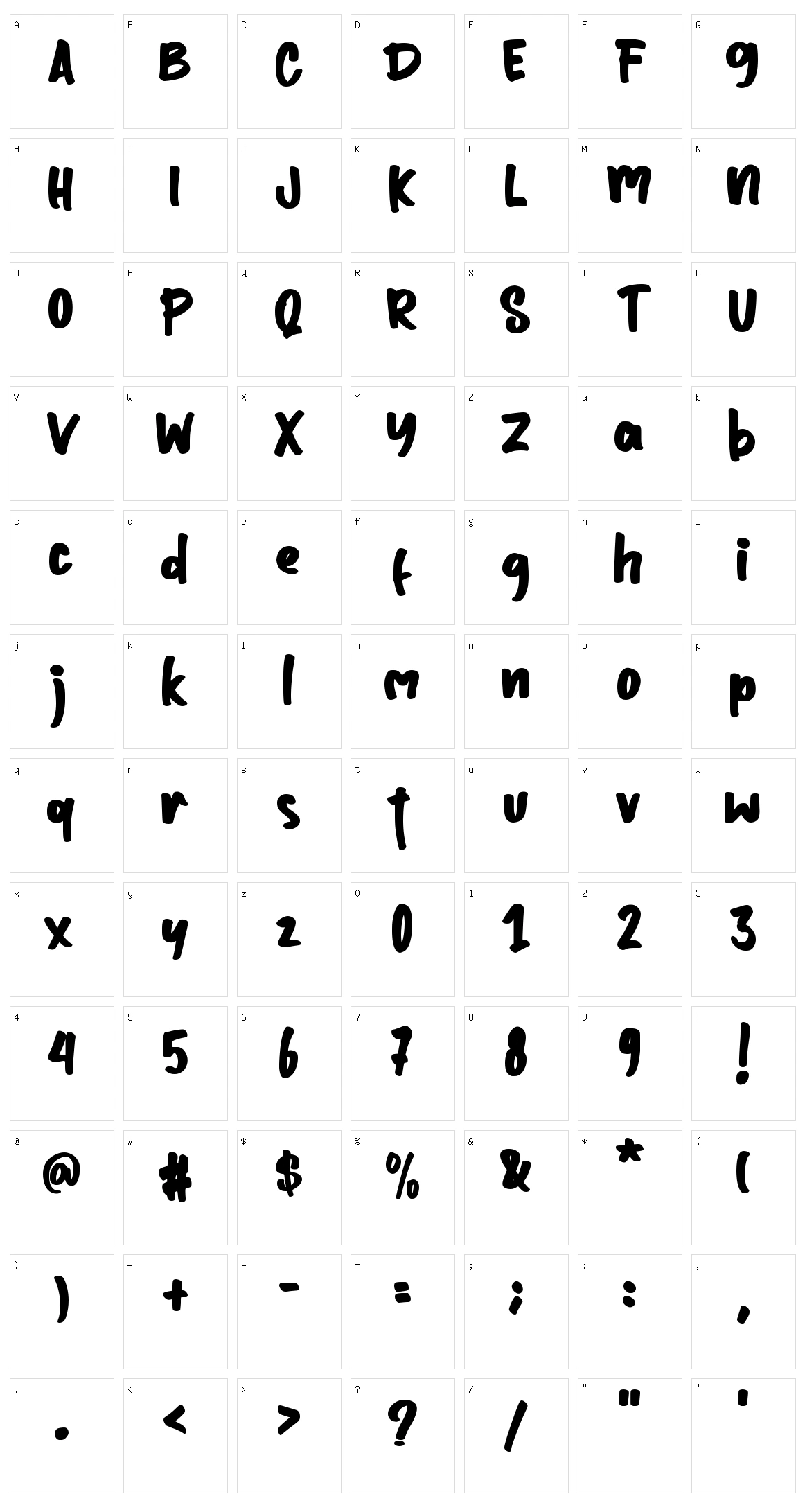
The free font Jolly Angel is carefully designed by Stefani Letter, showcasing a thoughtful balance of creativity and usability and falls under the Script font style. When you download the ZIP file, it contains only 228.83 KB of font files, making it lightweight and quick to download. Please review the license details below to understand permitted usage and distribution rights. If license information is not available, we recommend using this font for personal projects only or contacting the author directly for commercial usage permissions.